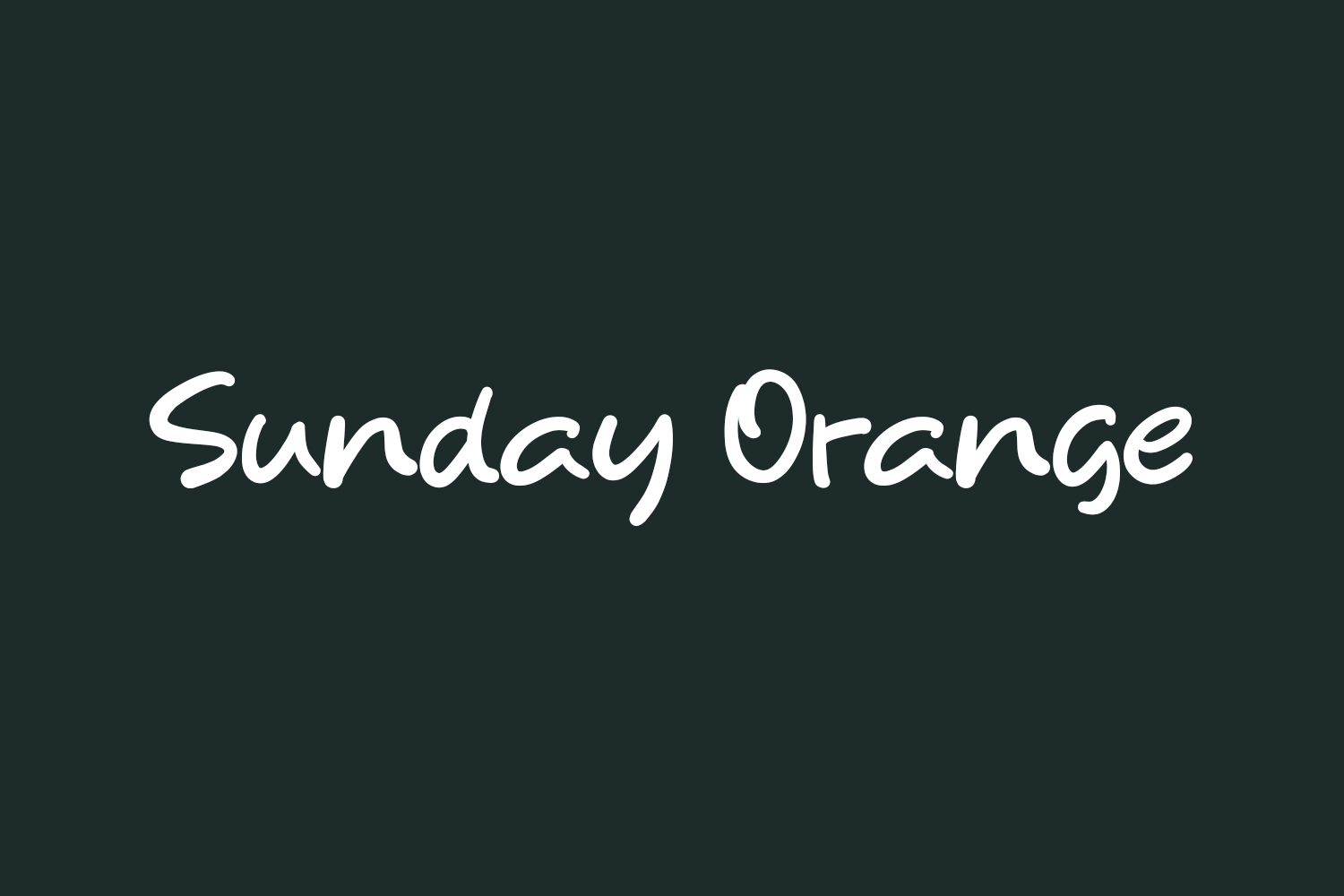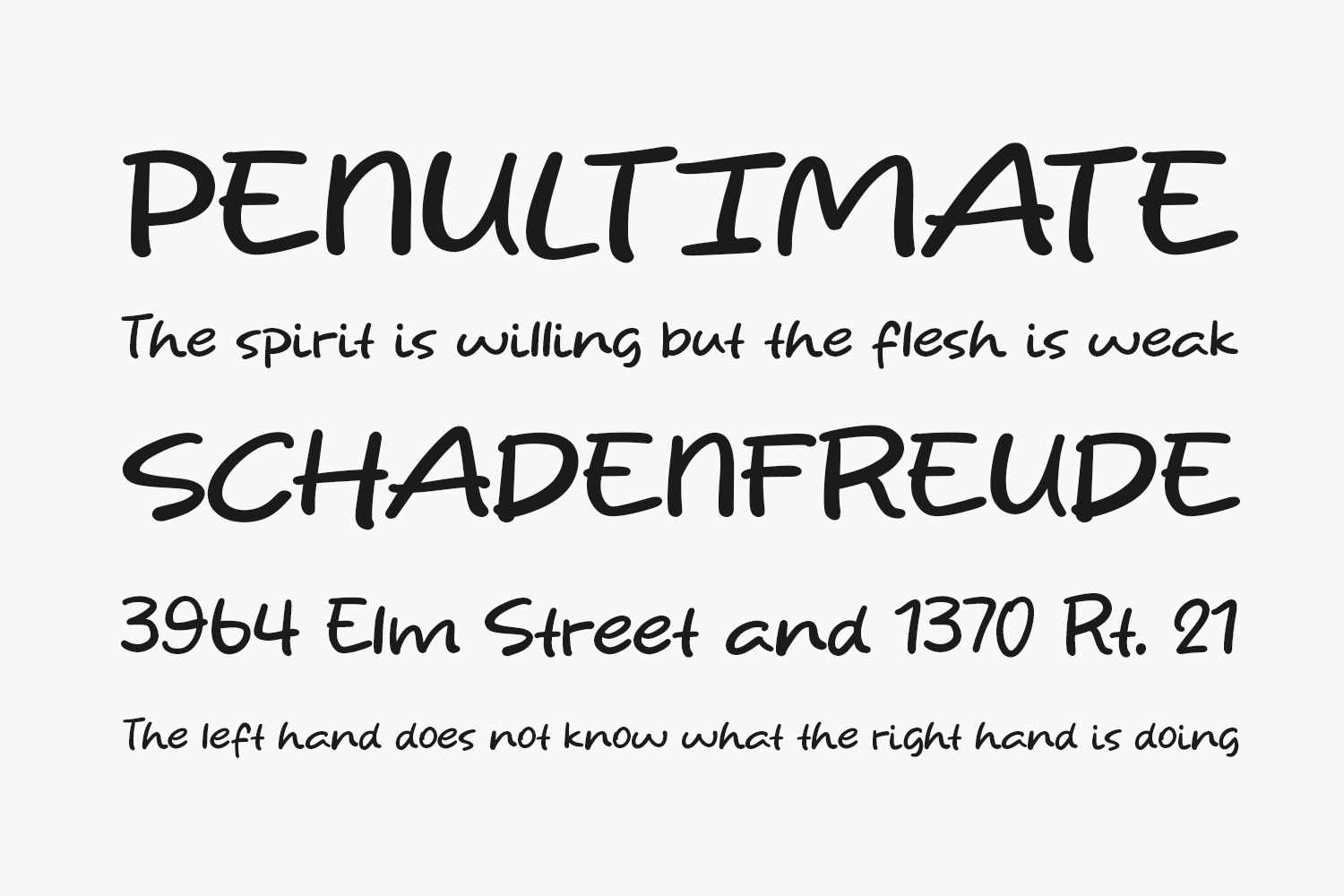
Sunday Orange Free Font is a contemporary and charming display font ideal for a variety of design projects, including posters, logos, magazines, book covers, banners, and more! Obtain this incredible font to enhance your designs and imbue them with delight. Its adaptability allows seamless integration into a broad range of projects, elevating your creative concepts and making them truly distinctive. Sunday Orange Free Font is free for personal or commercial use.